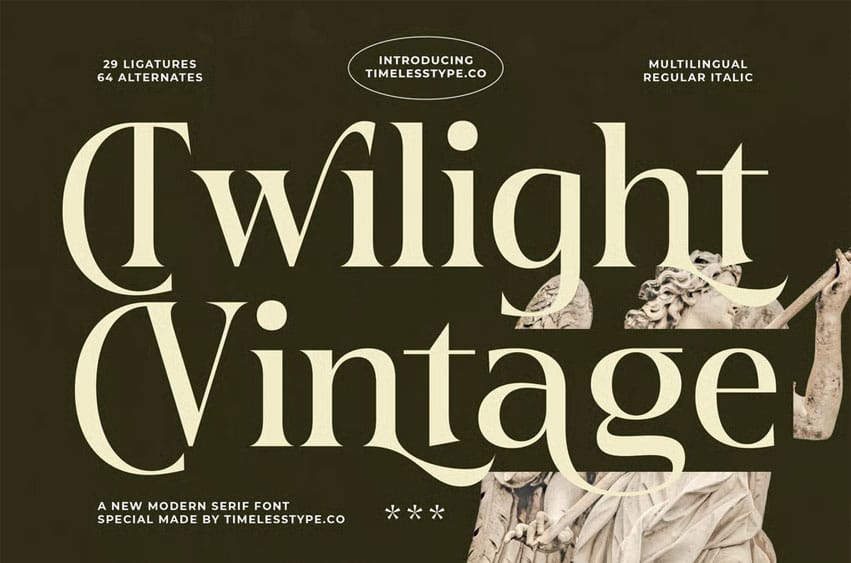
Twilight Vintage Font is a modern serif font that fuses classical artistry with contemporary refinement. Featuring 29 ligatures, 64 alternates, and multilingual support, this typeface offers exceptional versatility for branding, editorial layouts, packaging, and projects.
Its smooth curves and elegant contrasts evoke the charm of antique typography while maintaining a fresh, modern edge. Available in Regular and Italic, Twilight Vintage is perfect for designers seeking a balance between timeless sophistication and artistic flair — a true statement piece for elegant design.